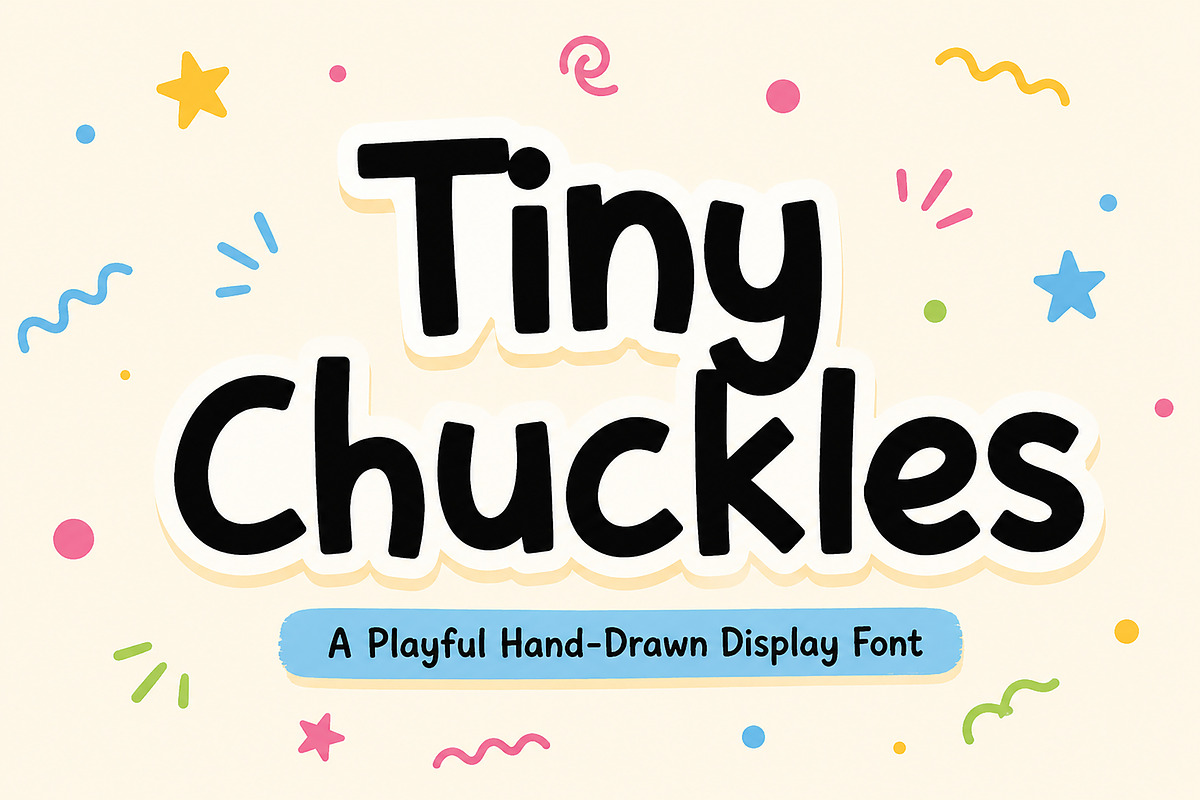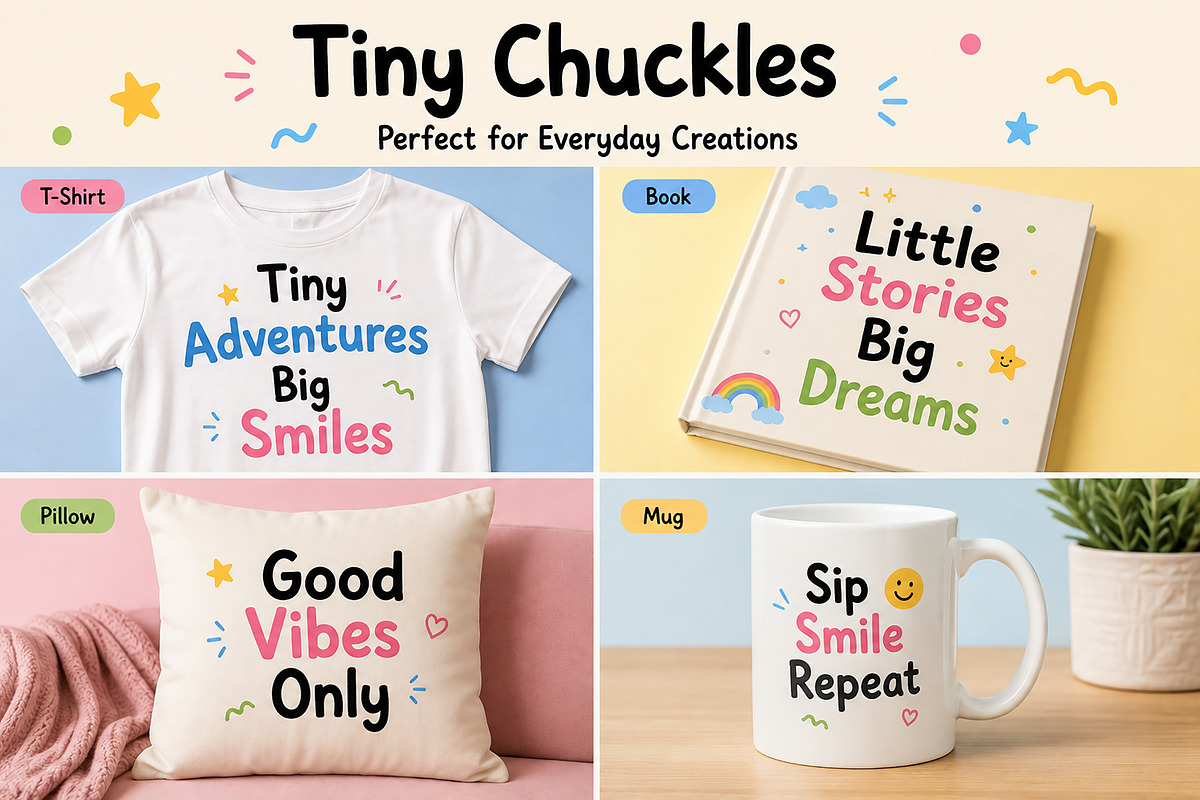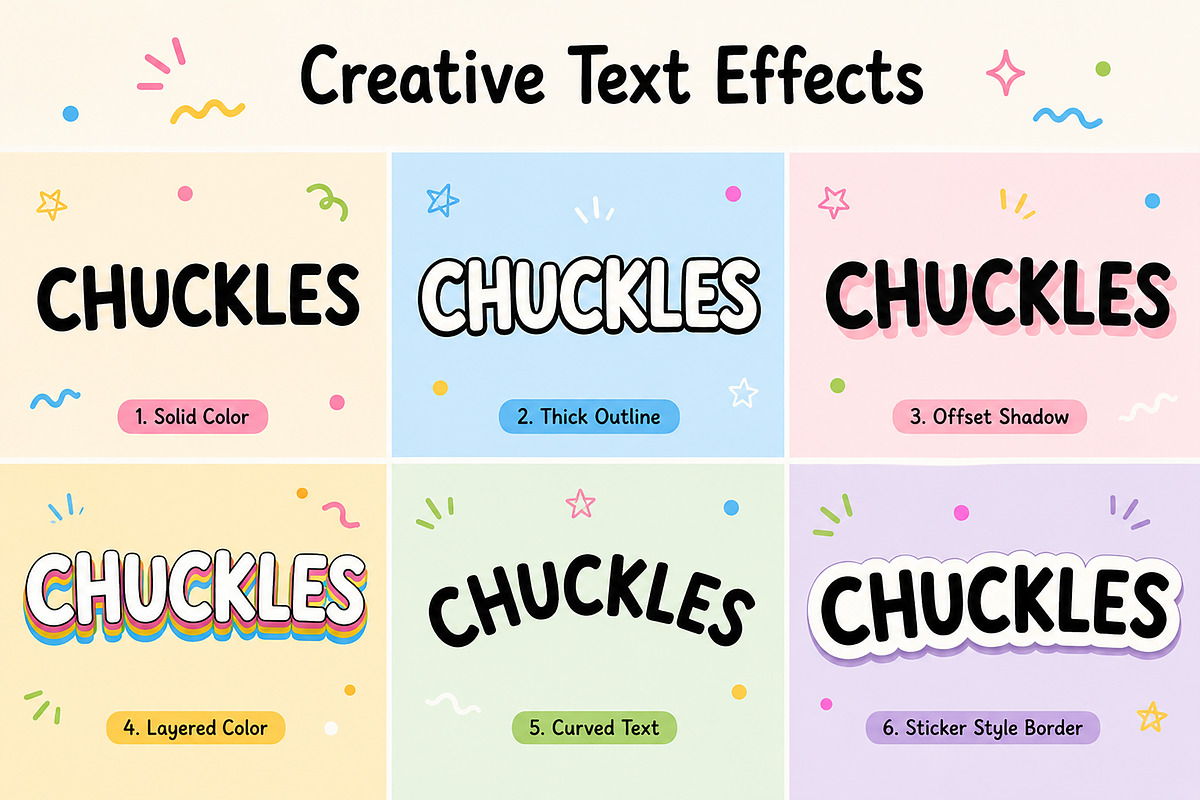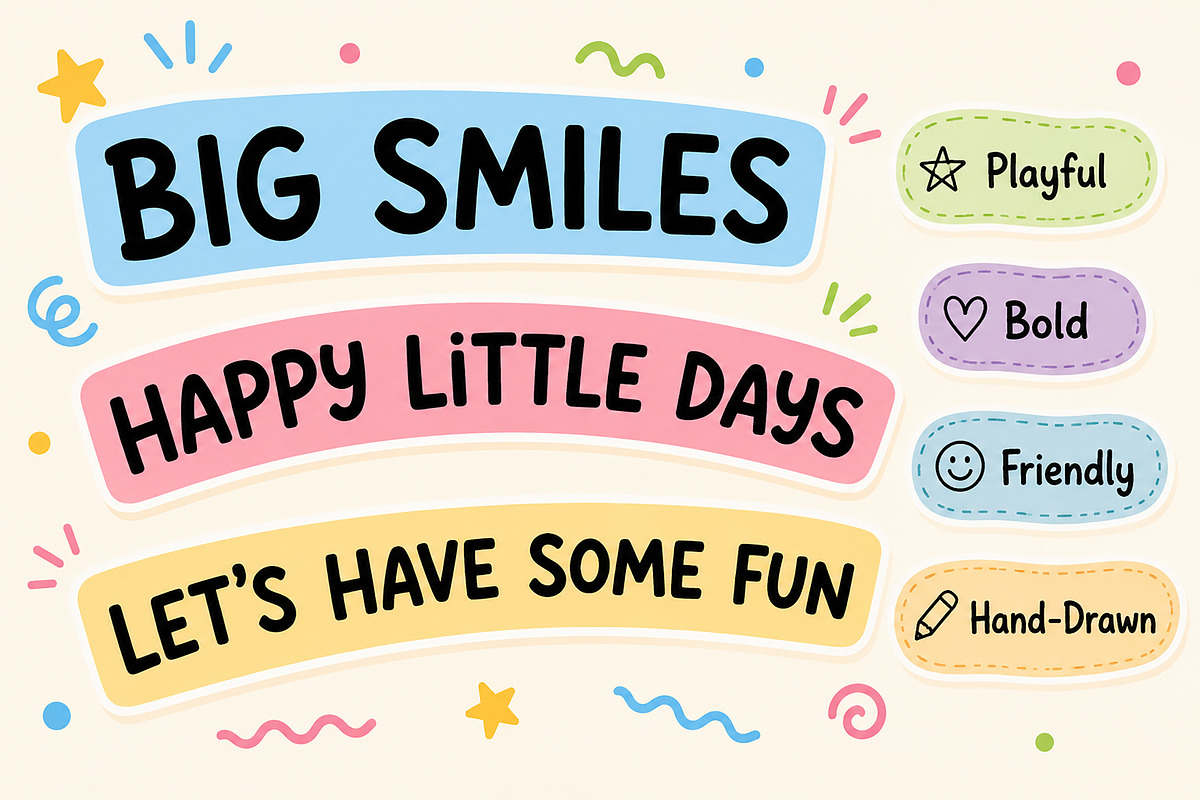
Tiny Chuckles – A Hand-Drawn Font
Tiny Chuckles – A Playful Hand-Drawn Display Font
Bring happiness, creativity, and personality to your designs with Tiny Chuckles, a fun hand-drawn display font created for playful and eye-catching typography. Its bold, rounded letterforms and friendly appearance make it perfect for children's projects, branding, packaging, posters, social media graphics, and more.
Whether you're designing for kids or simply want a cheerful and creative look, Tiny Chuckles helps your text stand out with a warm, handmade feel.
Kids Branding
Children's Books
Birthday Invitations
Toy Packaging
Stickers
Posters
Classroom Materials
YouTube Thumbnails
Greeting Cards
Logos
T-Shirt Designs
Mug Designs
Pillow Designs
Printable Crafts
DIY Projects
Fun Packaging
Creative Headlines
Display Typography
Playful Hand-Drawn Style
Bold Display Typeface
Easy to Read
Clean and Smooth Letterforms
Perfect for Headlines and Titles